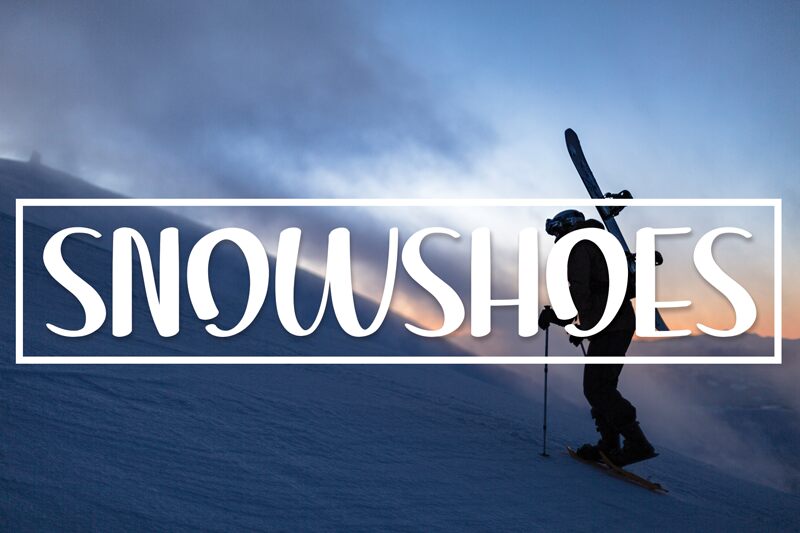
Snowshoes
Snowshoes is a smooth brush font that exudes a sense of warmth and elegance. Designed by Andi Moz, this captivating typeface features graceful curves and fluid strokes that evoke a calligraphic aesthetic. The letters seamlessly flow together, creating a cohesive and visually appealing appearance. Snowshoes shines in a variety of applications, from editorial design and branding to packaging and advertising.
Its versatility allows it to seamlessly integrate into both modern and traditional design compositions, elevating the overall aesthetic with its refined and sophisticated charm.